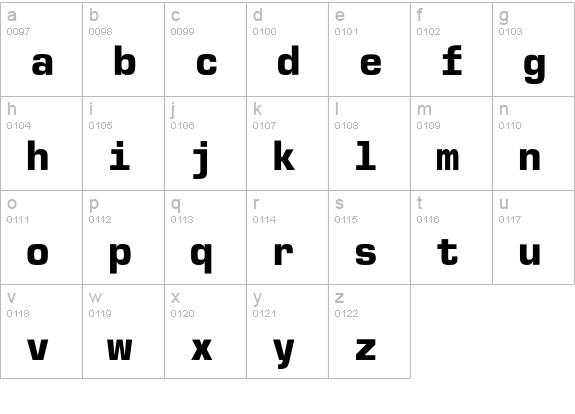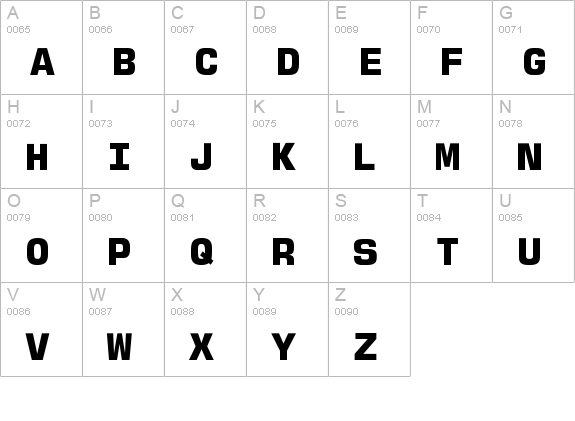
EurostileMonoEF-Black Font Details
EurostileMonoEF-Black is a maximum-weight, dramatic variant in the EurostileMonoEF typeface family \xE2\x80\x94 well suited to maximum-impact headlines, posters, and packaging.
EurostileMonoEF-Black is a bold and modern monospaced font that exudes a sense of strength and sophistication. Its clean lines and geometric shapes make it perfect for a variety of design projects, from branding to editorial layouts. The sharp edges and heavy weight of this font command attention, making it ideal for headlines and titles that need to make a bold statement. What's even better is that EurostileMonoEF-Black is available for free download at FontsMarket.com. This means you can easily access this striking font and incorporate it into your creative projects without any cost. Whether you're working on a poster, website, or any other design endeavor, EurostileMonoEF-Black is sure to add a touch of modern flair and professionalism. Don't miss out on this opportunity to enhance your designs with this sleek and powerful typeface.